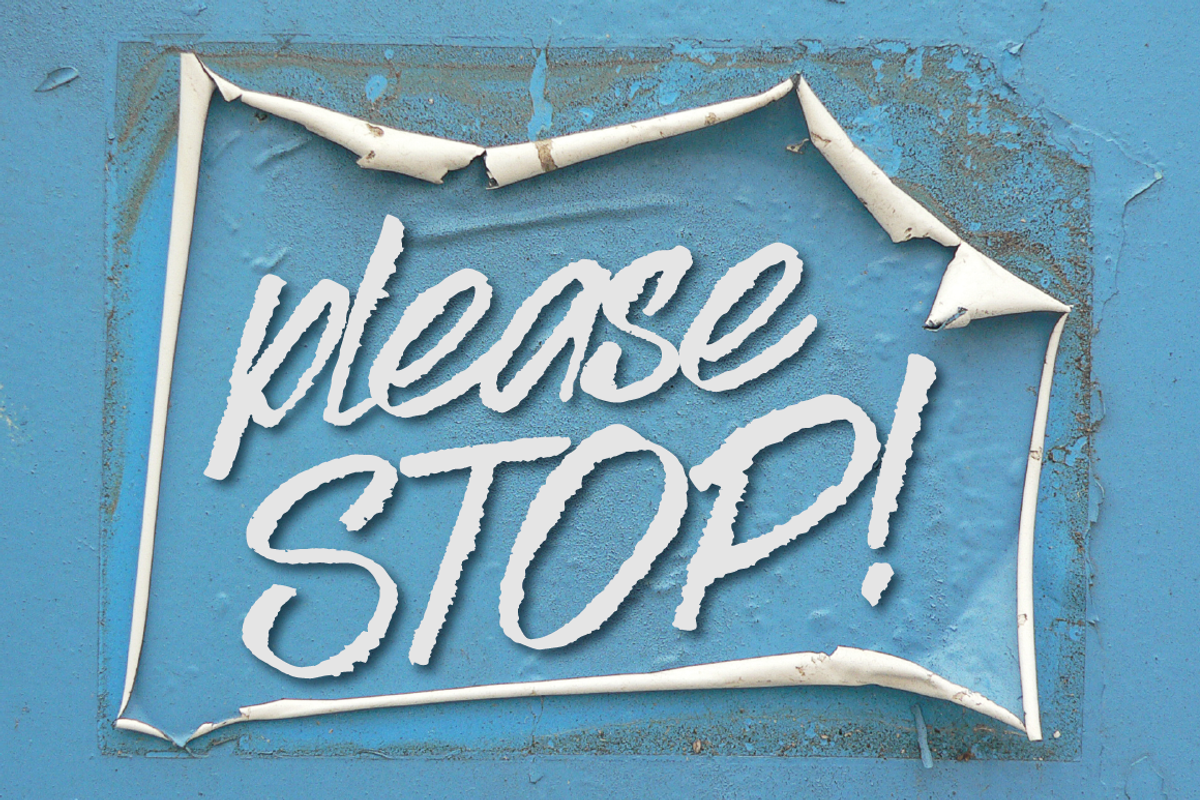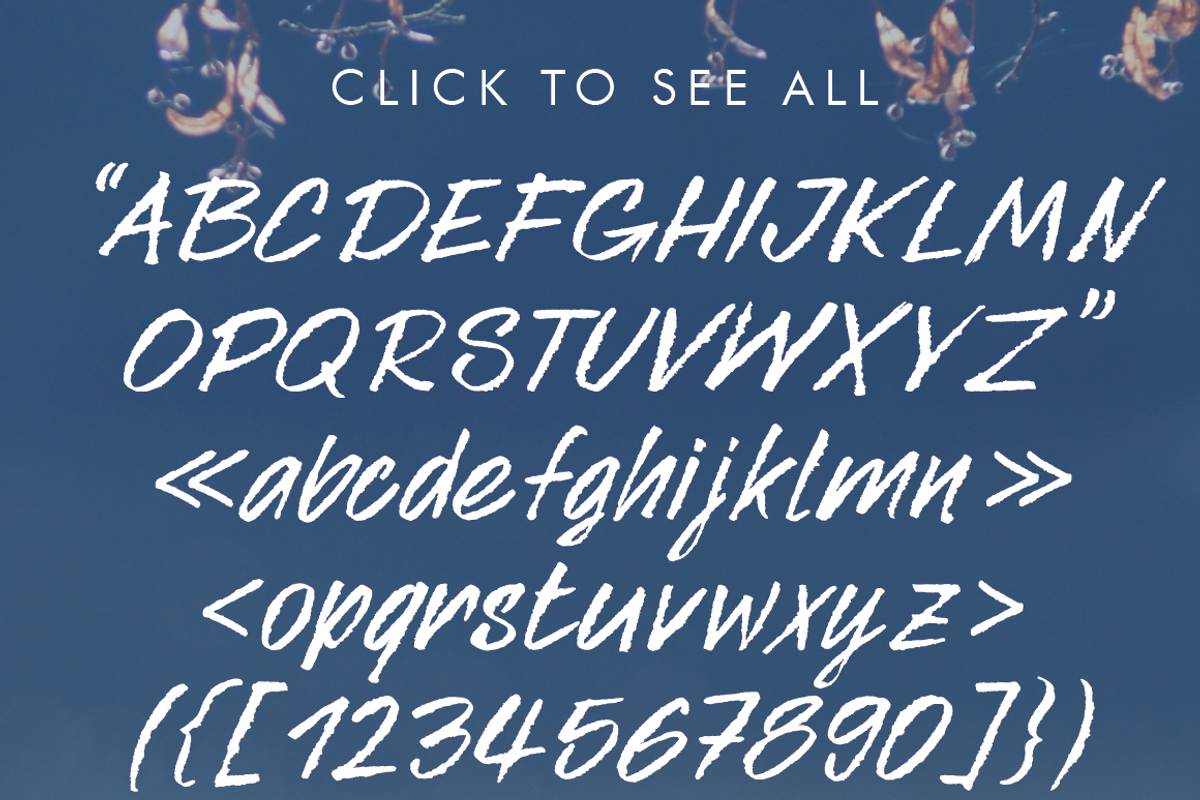
Inkje Italic Font
Inkje Italic Font by ateliervonau is a font selected for branding, posters, packaging, typography.
Why Inkje Italic Font is worth a look
Inkje Italic Font by ateliervonau fits naturally into Branding, posters, packaging, typography.